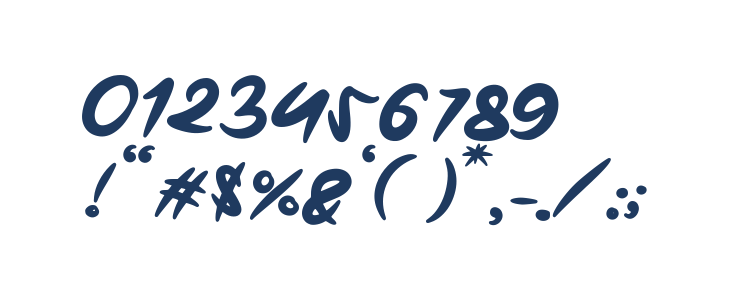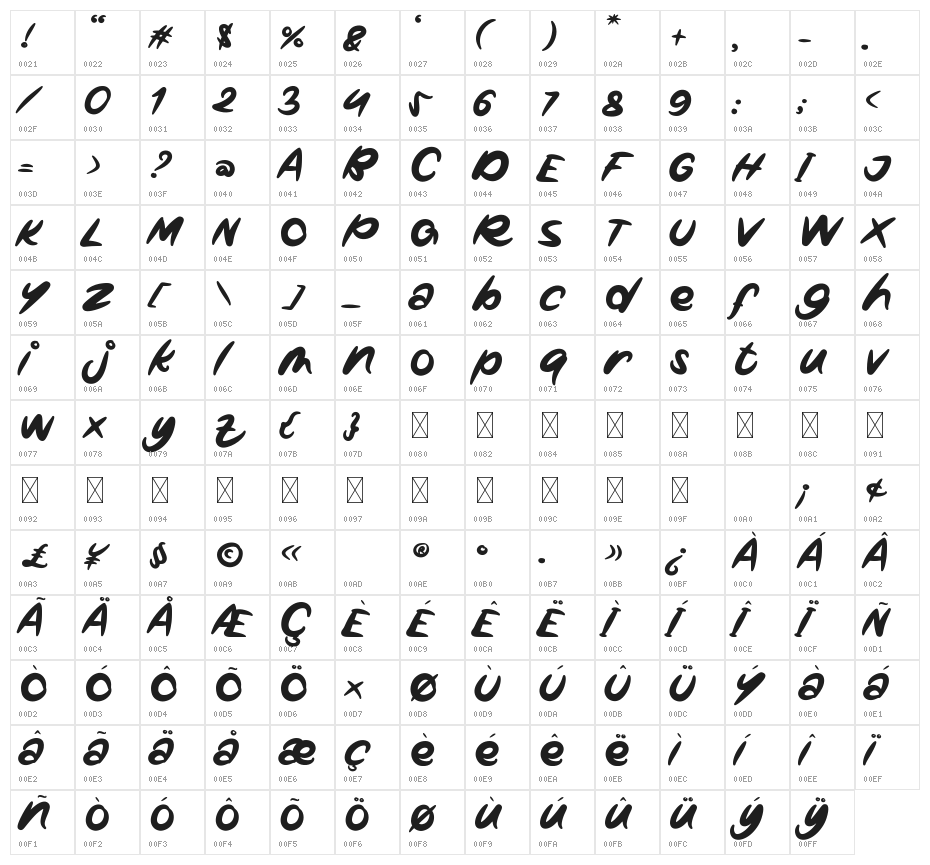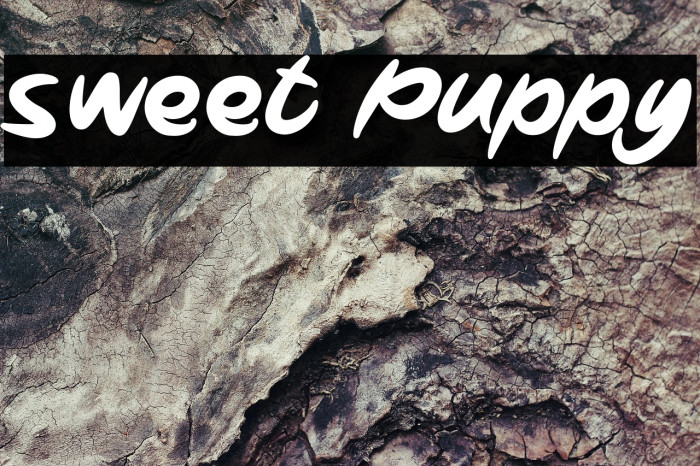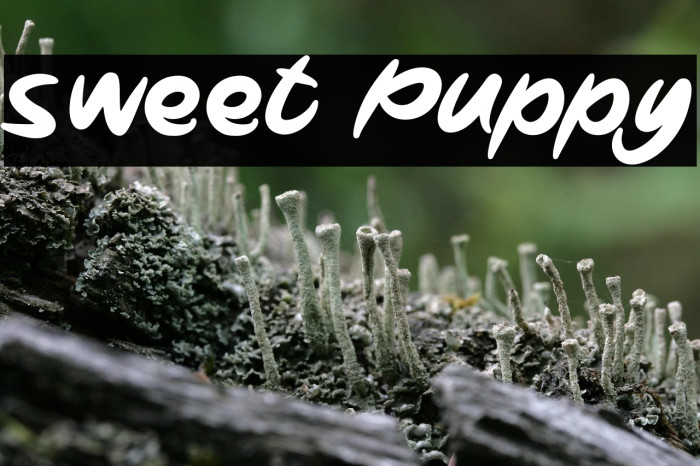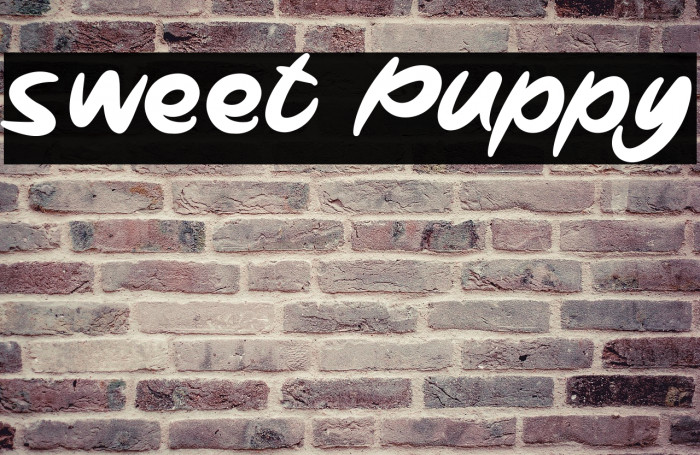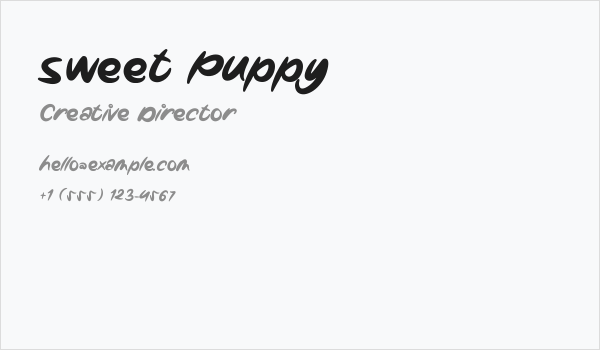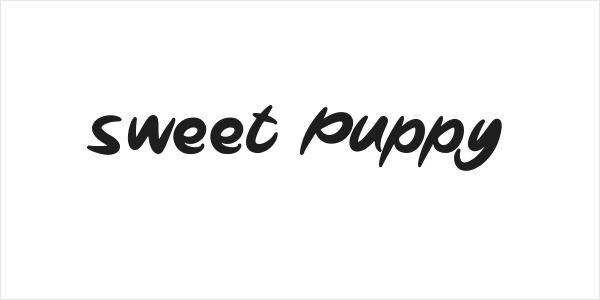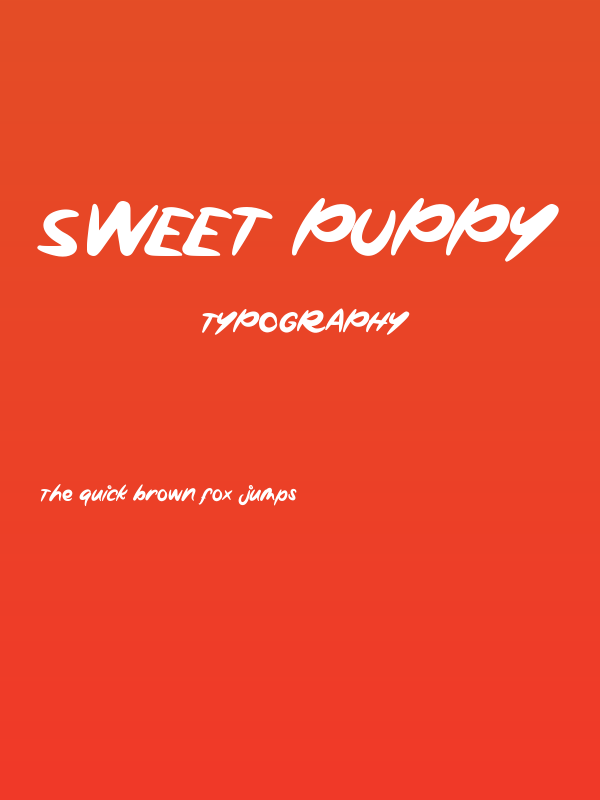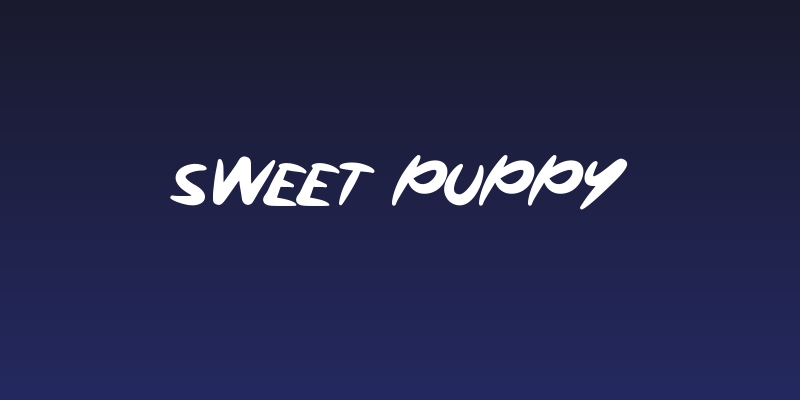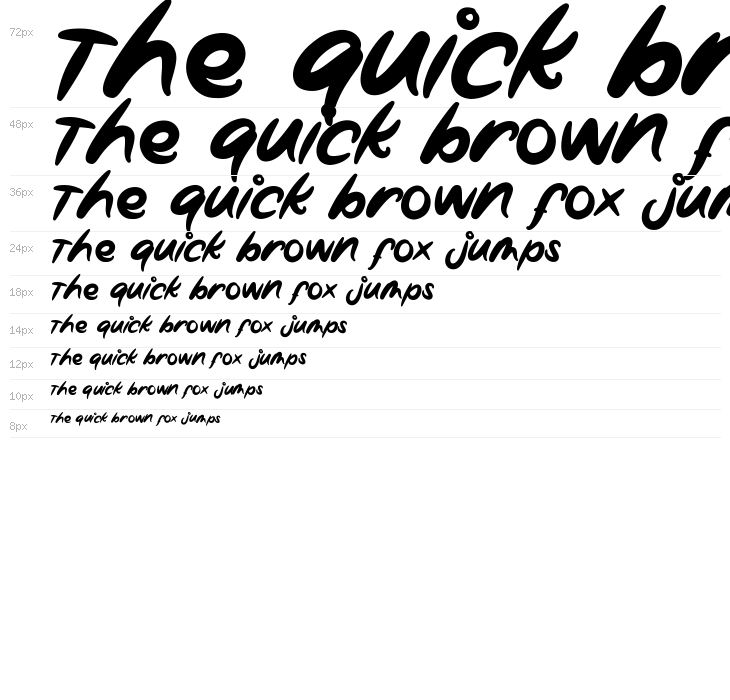
Sweet Puppy Font
Sweet Puppy Description
This playful and energetic font features a bold, handwritten style with smooth, flowing curves and a lively personality. The letters are slightly slanted, giving a sense of motion and dynamism. The uppercase and lowercase characters maintain a consistent style, with rounded edges and a friendly appearance. The numbers and special characters complement the alphabet with the same whimsical flair. This font is perfect for projects that require a fun and informal touch, such as children's books, playful branding, or casual invitations.
| Proposed Projects | Ideal for children's books, playful branding, casual invitations, and creative posters. |